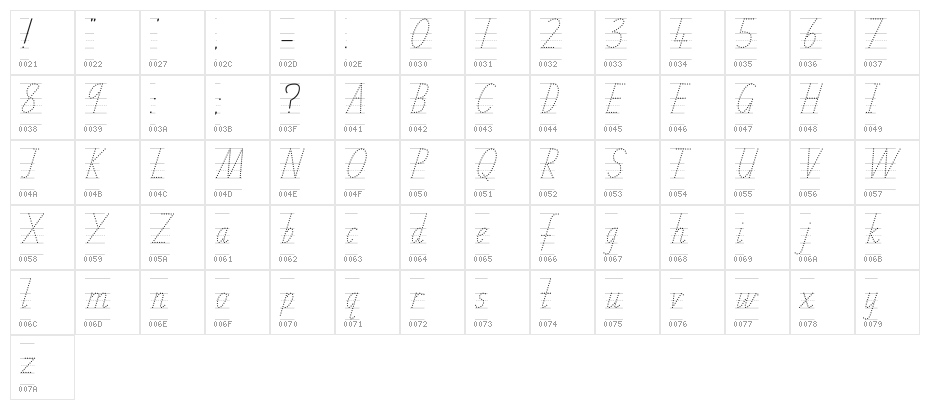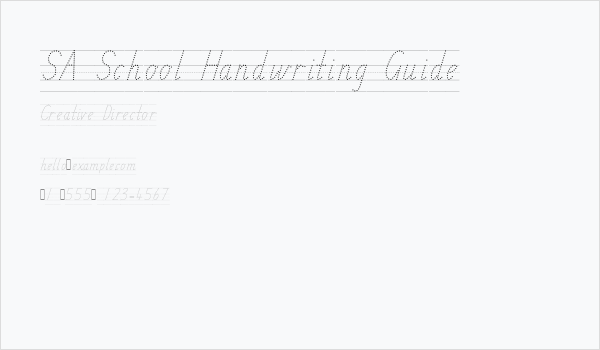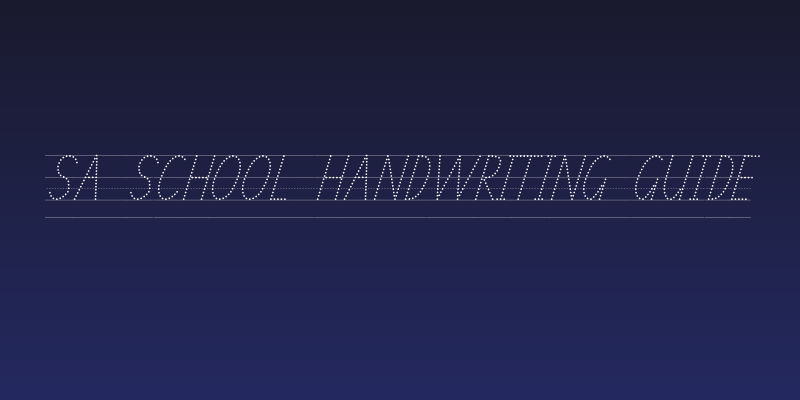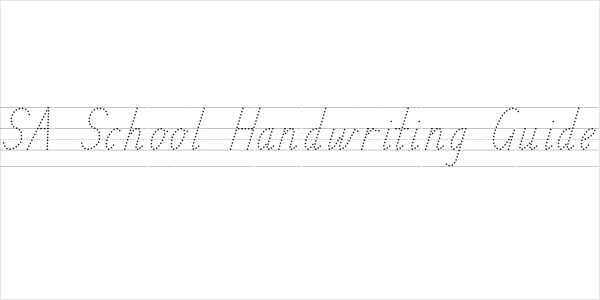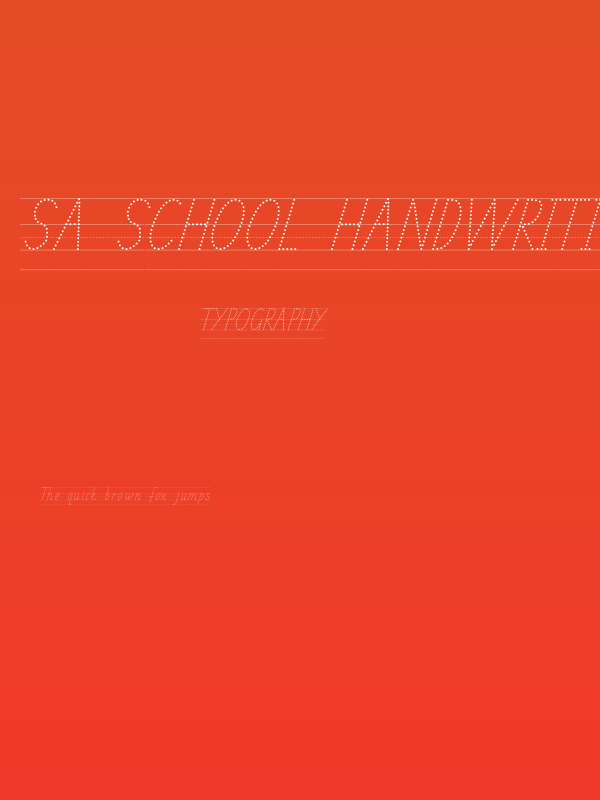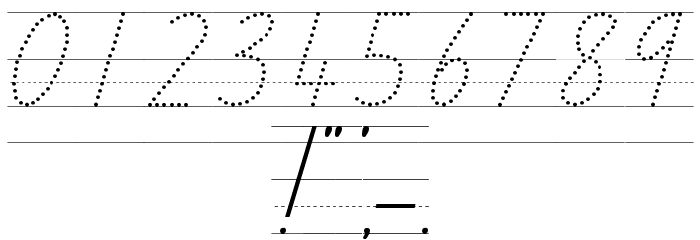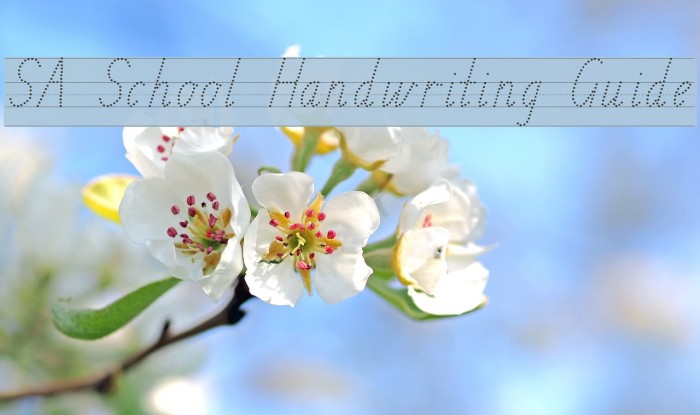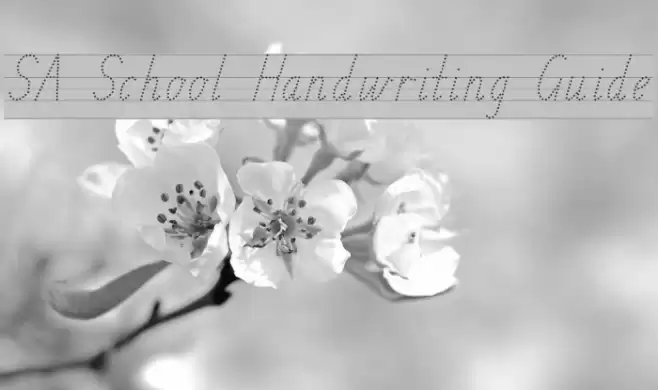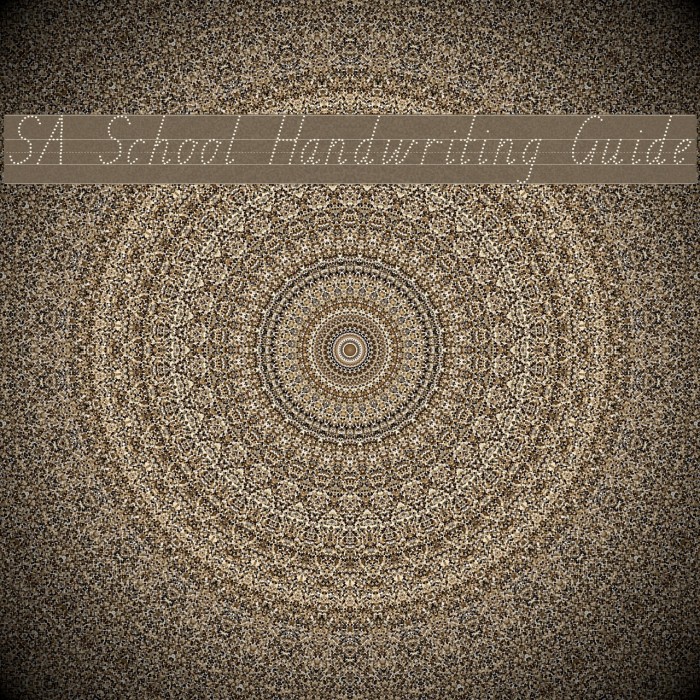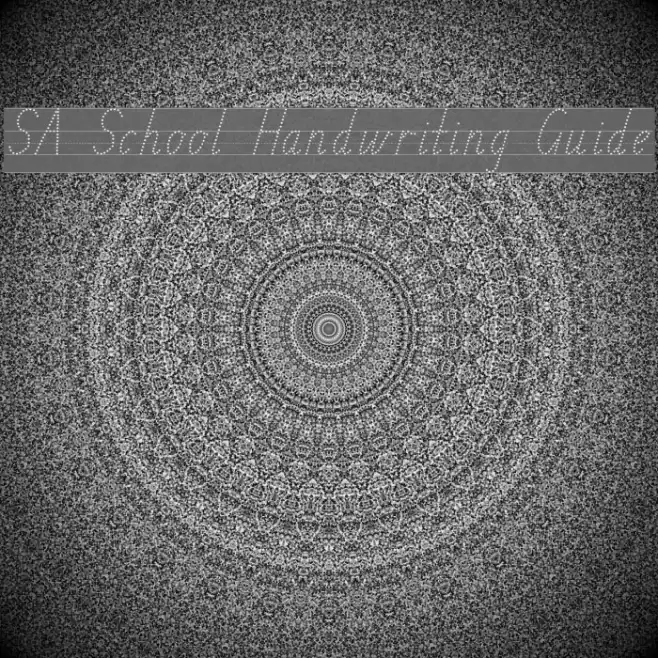
SA School Handwriting Guide Font
| Stil general | Educational |
| Caz de utilizare | Handwriting practice, educational tools. |
| Proiecte propuse | Ideal for educational materials, handwriting practice sheets, and teaching aids for young learners. |